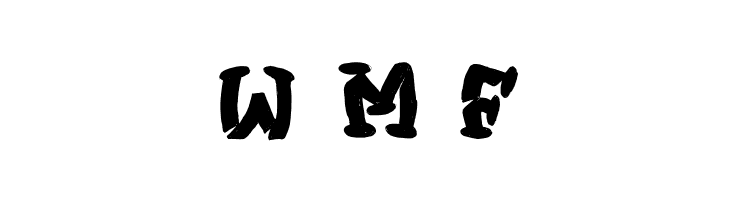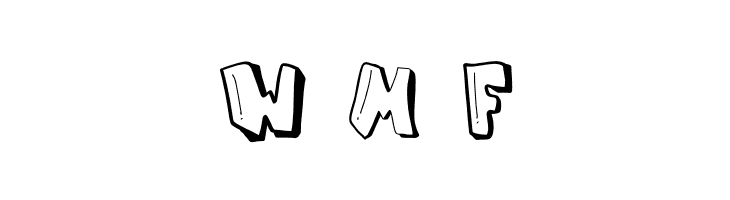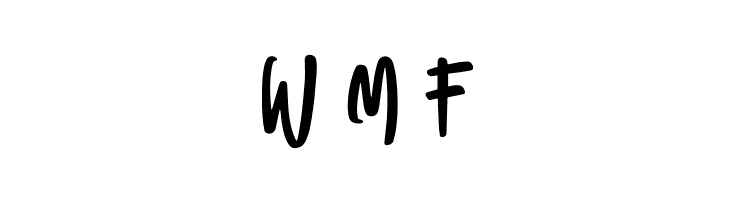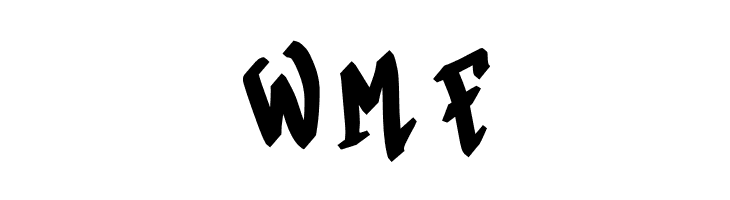
( Fonts by Nirmana Visual )
A bold, graffiti-inspired font with thick, rounded characters and a playful, urban style.
( Fonts by 1980k.com )
A graffiti-inspired font with bold, sweeping strokes and intricate detailing.
( Fonts by Yoga Letter )
A bold, angular font with a gothic influence and dramatic flair.
( Fonts by Letterafa Studio )
A bold, playful font with a 3D effect and hand-drawn texture.
( Fonts by Ronny Studio )
A bold, brush-style font with dynamic strokes and a playful, informal appearance.
( Fonts by Yoga Letter )
A bold blackletter font with sharp, angular lines and a gothic aesthetic.
( Fonts by Ahwe Project )
A bold, cartoonish font with thick, dynamic characters.
( Fonts by Wasabib Studio )
A bold, playful font with a rounded, bubbly design perfect for dynamic projects.
( Fonts by Scattersmiles )
A playful, hand-drawn font with irregular, angular shapes and a whimsical style.
( Fonts by Ronny Studio )
A bold, dynamic font with a graffiti-inspired style.
( Fonts by Muslim Preneur Art )
A bold, graffiti-inspired font with sharp, angular lines and dynamic style.
( Fonts by Regulerstudio )
A bold, brush-style font with dynamic, hand-painted characteristics.
( Fonts by Annisa Afni )
A bold, playful, hand-drawn font with a casual and informal style.
( Fonts by Cikareotype Studio )
A bold, graffiti-inspired font with rounded, bulbous characters and a playful urban style.
( Fonts by Solv Vast )
A bold, angular font with a modern, geometric style.
( Fonts by Display Studio )
A bold, graffiti-inspired font with dynamic and playful characters.